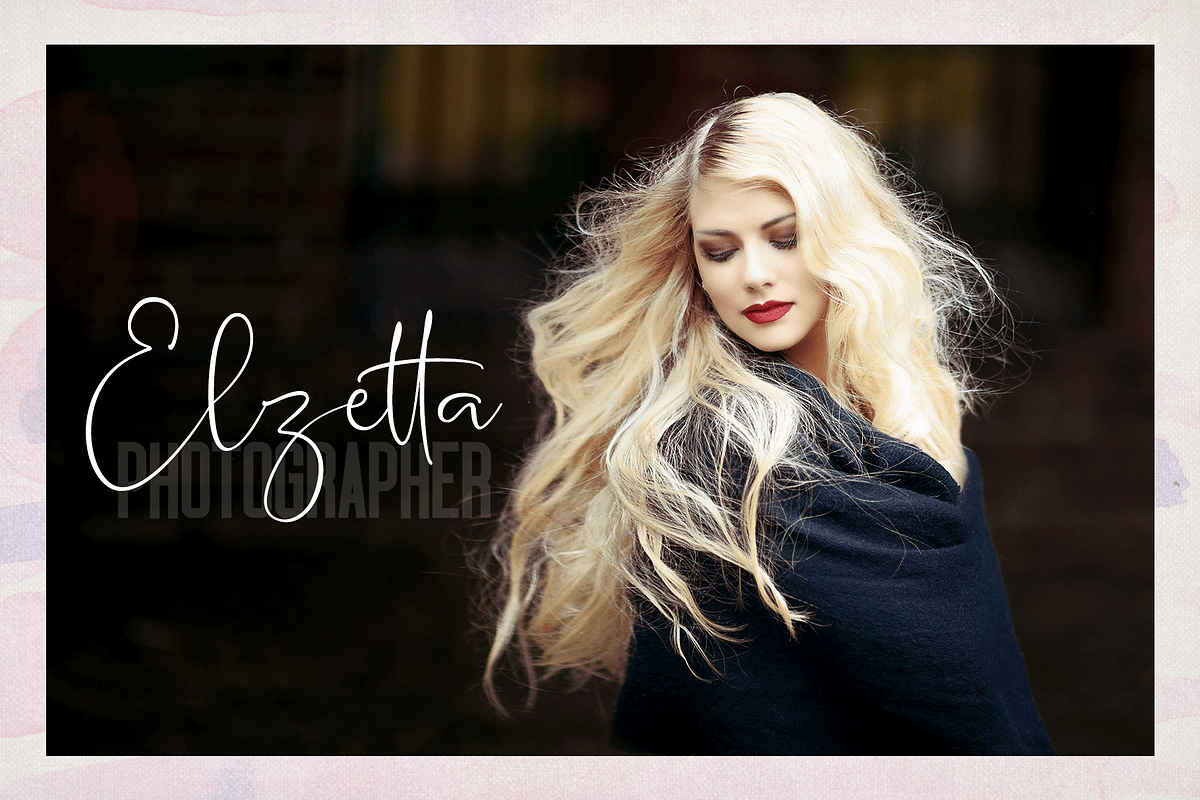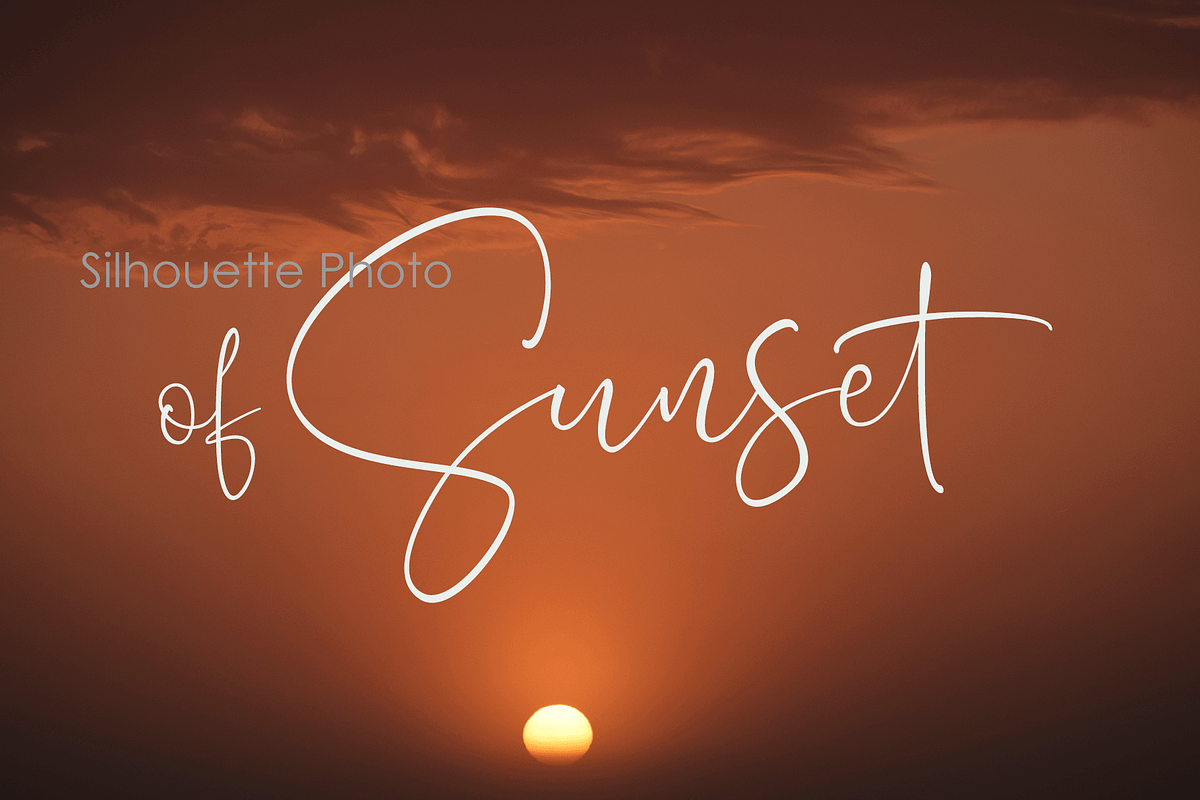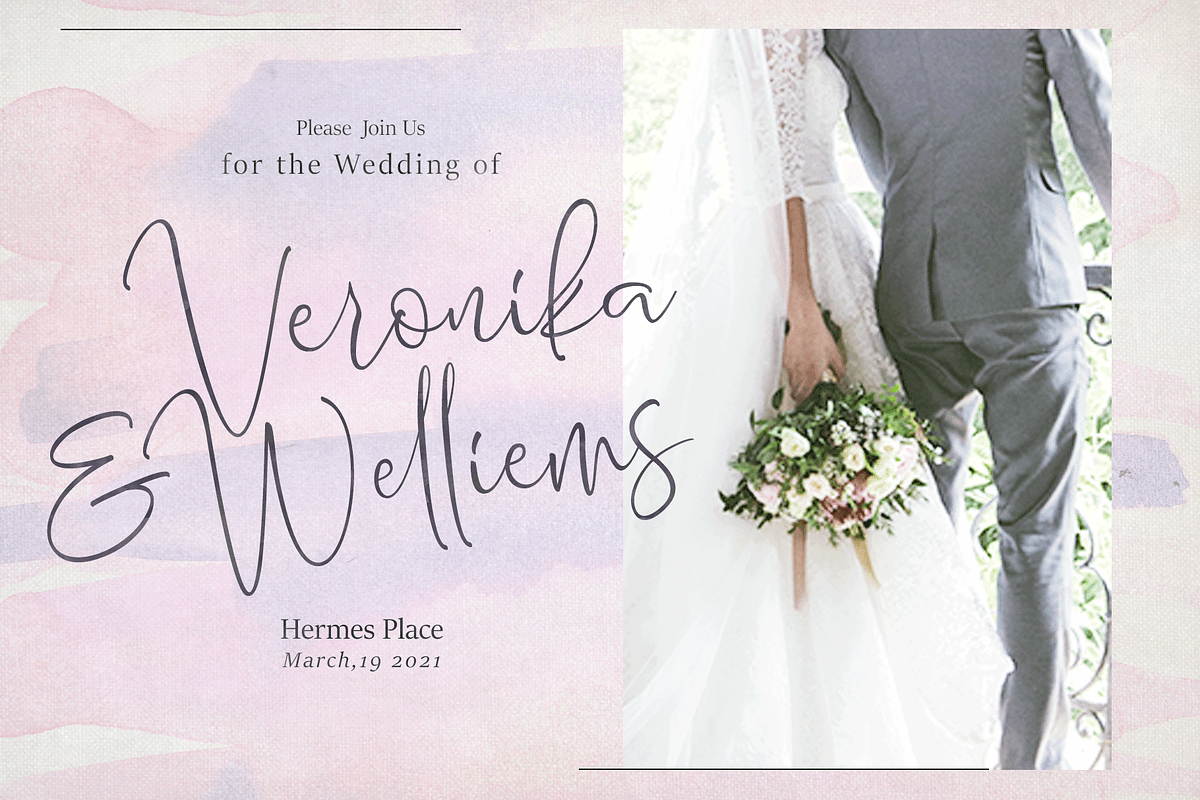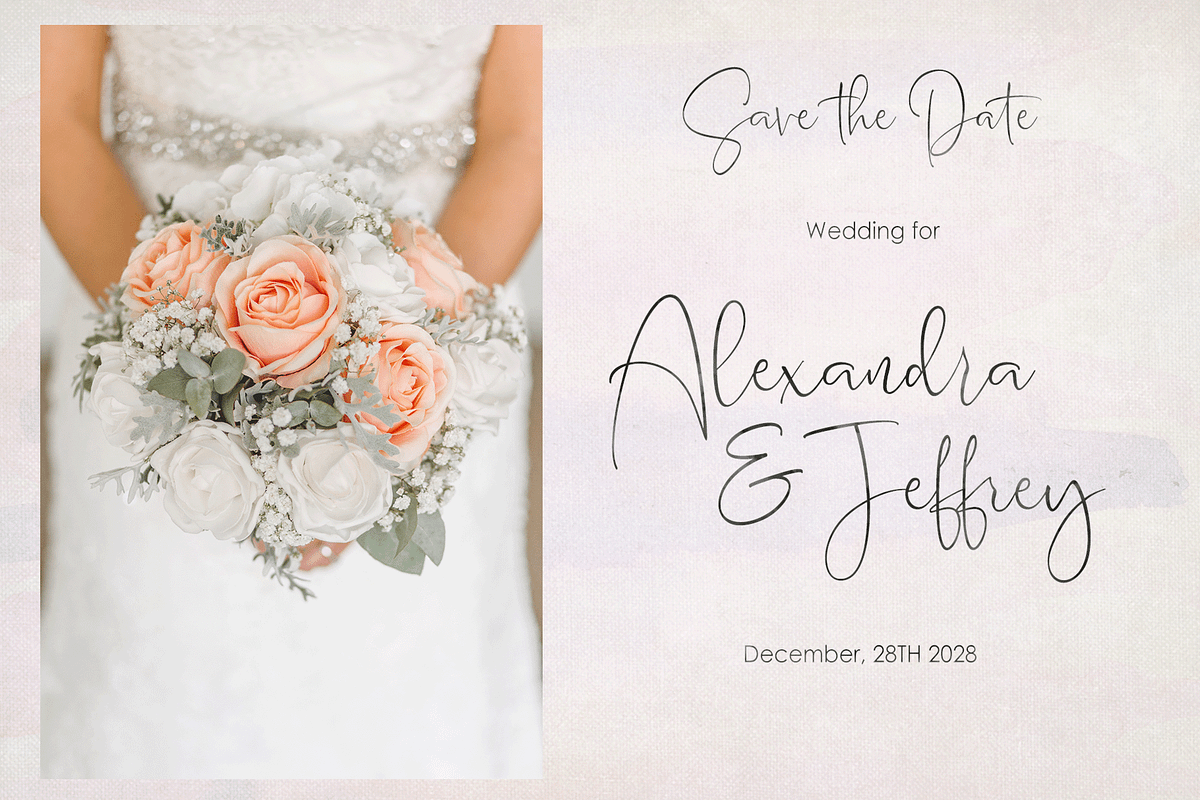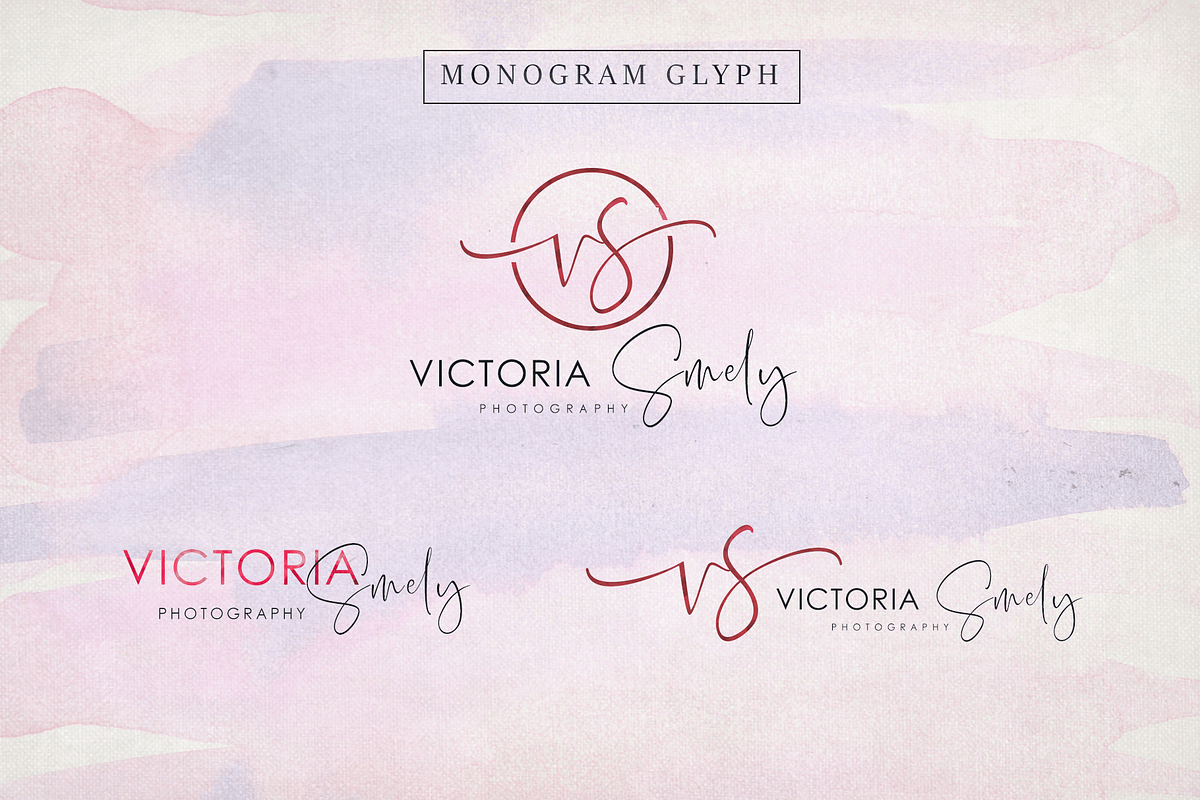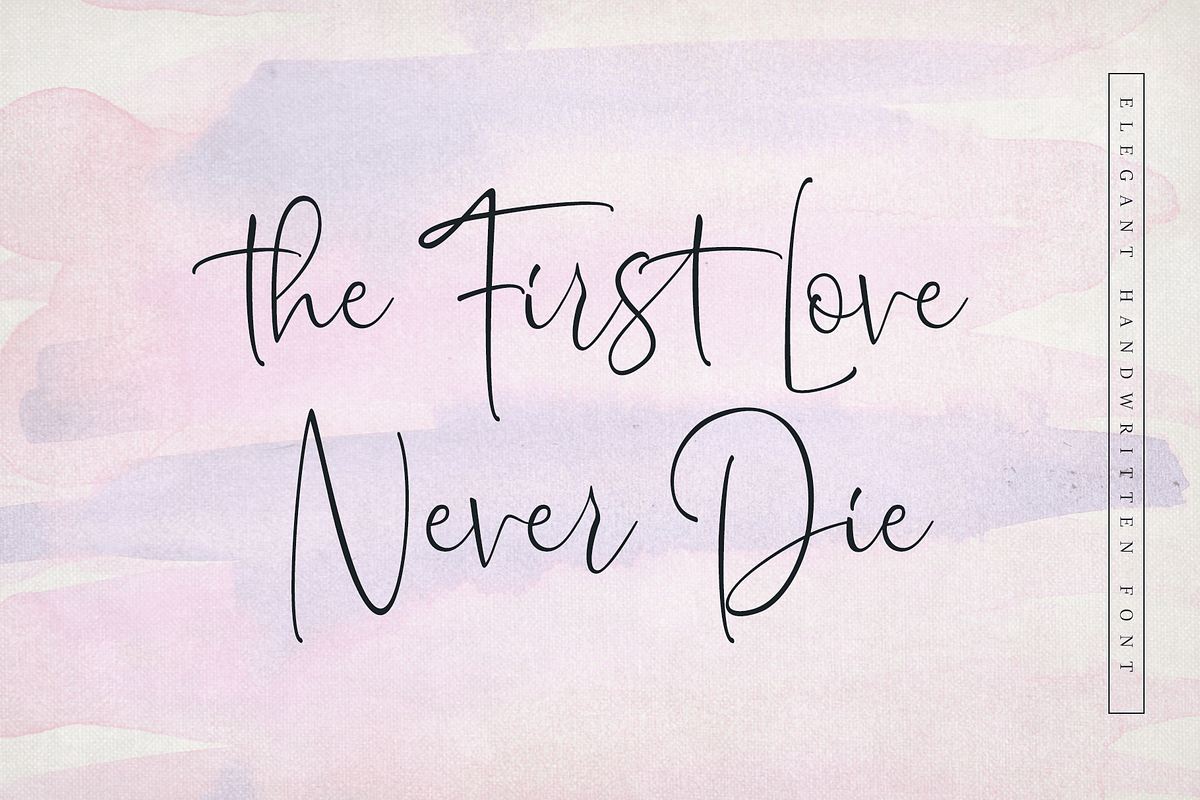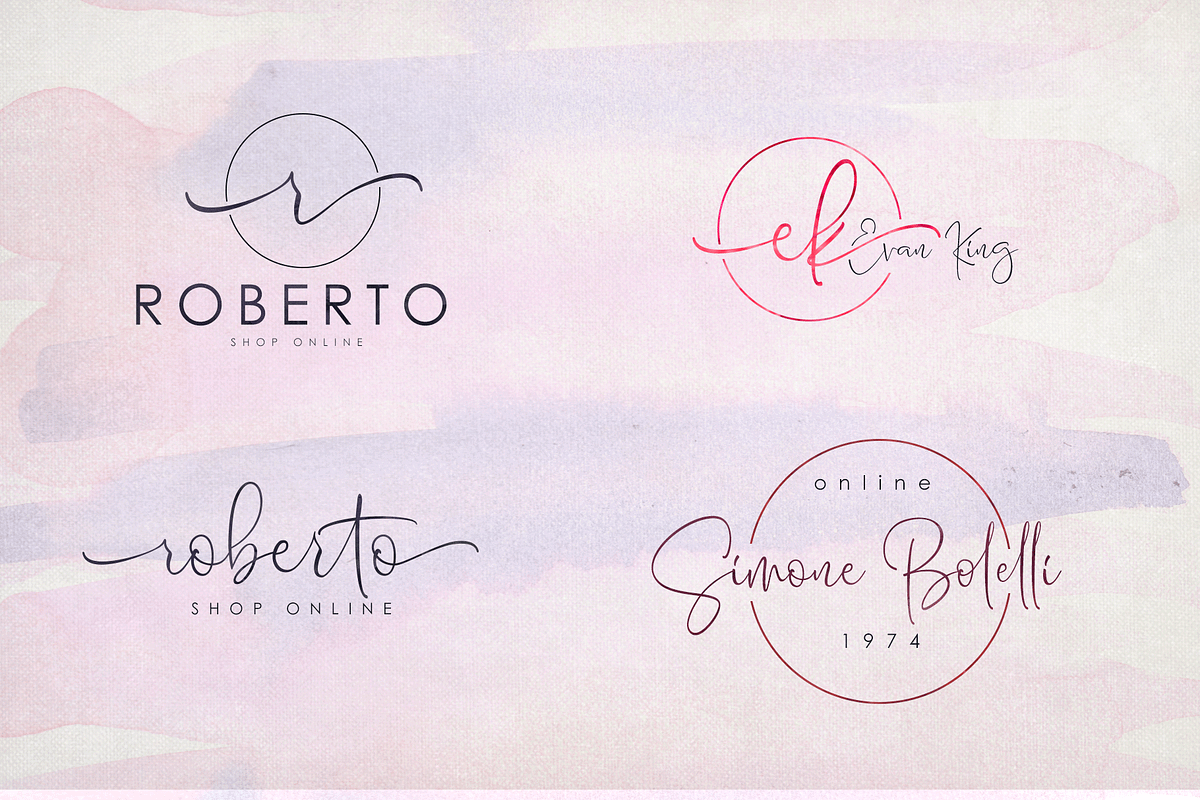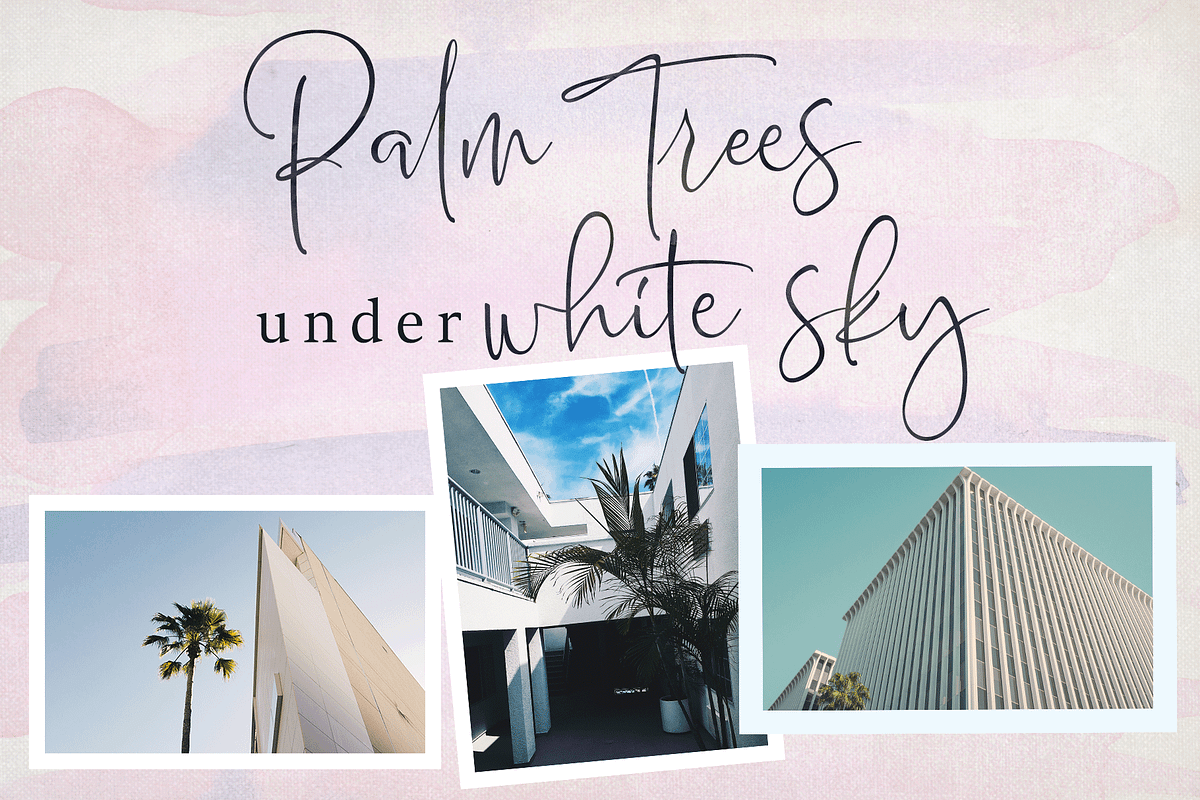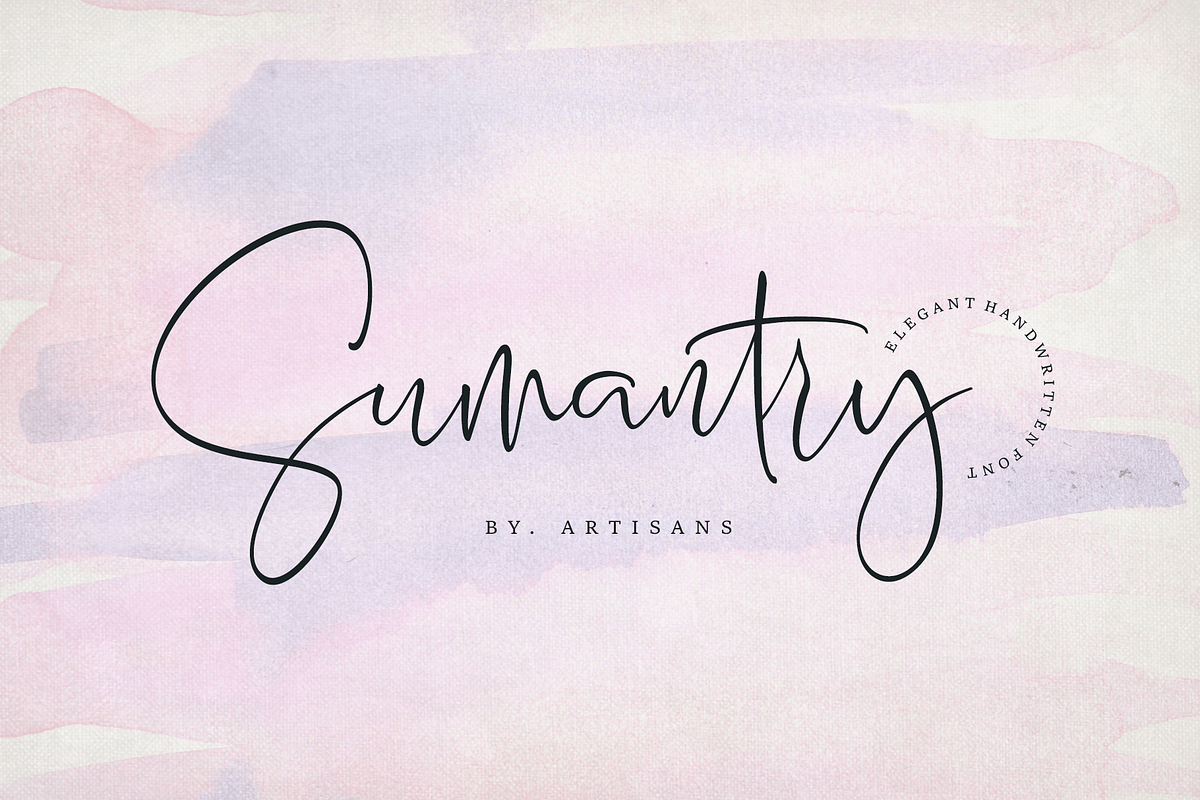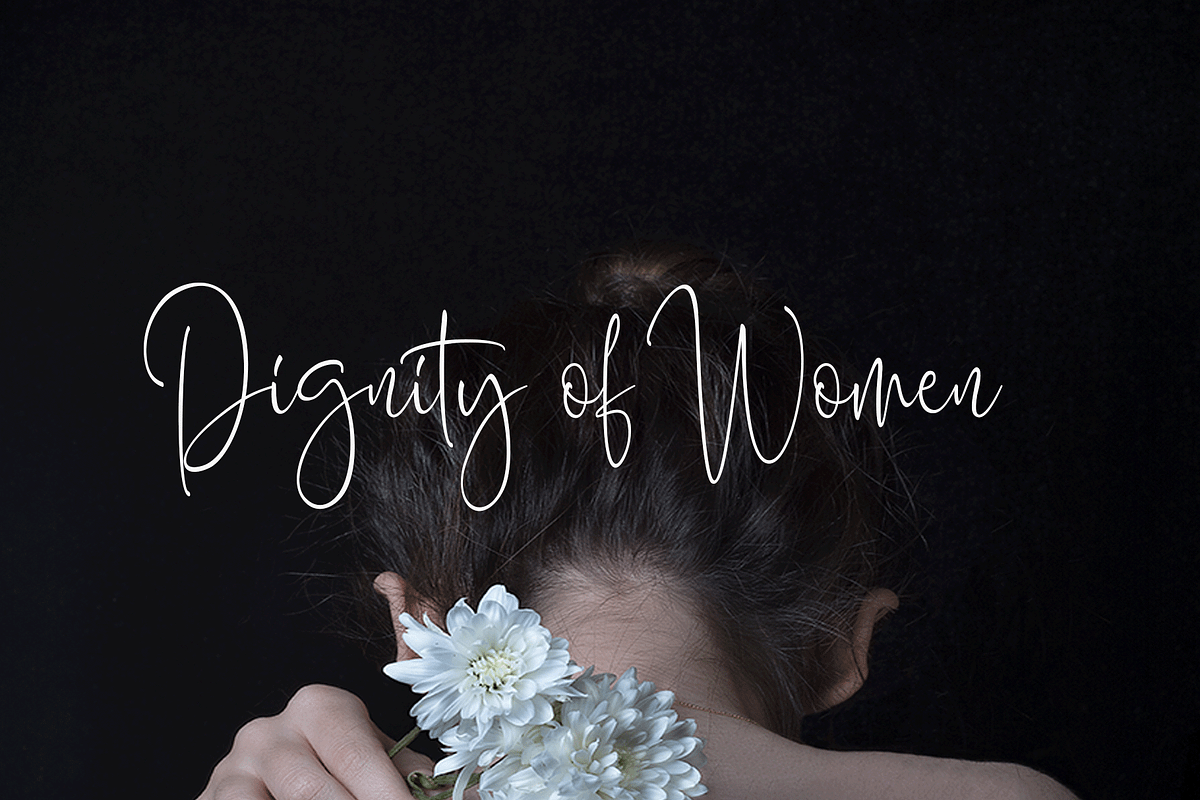
Sumantry
Sumantry is the only feminine font script, with a pure handwriting style, very perfect for invitations, signatures, logo designs, brands, and resources from this font can also be in the title of books and magazines.
Sumantry has Stylistic standard, Stylistic Alternates and ligatures. and includes uppercase and lowercase letters, numbers and punctuation marks.